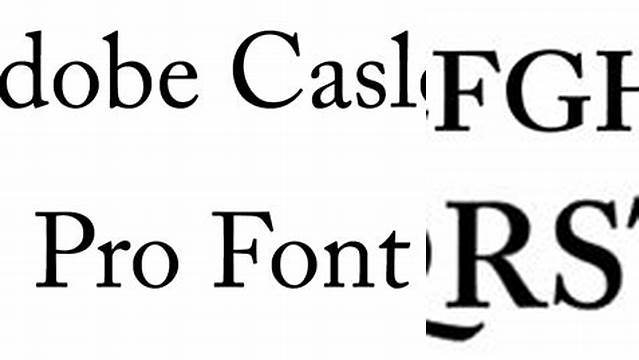
Hey guys! Are you on the hunt for a font that exudes elegance, professionalism, and a touch of historical charm? Look no further than Adobe Caslon Pro SemiBold! This typeface is a true gem in the world of typography, and in this article, we're diving deep into what makes it so special, where you can find it, and how to best utilize it in your projects. So, buckle up and let's explore the wonderful world of Adobe Caslon Pro SemiBold!
What Makes Adobe Caslon Pro SemiBold So Special?
When we talk about fonts, it's easy to get lost in the sea of options available today. But some fonts, like Adobe Caslon Pro SemiBold, have a certain je ne sais quoi that sets them apart. Its story is rooted in history, dating back to the 18th century, and its design principles are based on readability, harmony, and a classic aesthetic. This font isn't just a set of characters; it's a piece of art with a rich heritage that can bring a touch of sophistication to any design.
A Glimpse into History
The story of Adobe Caslon Pro SemiBold begins with William Caslon I, an English typefounder who created the original Caslon typeface in the 1720s. Caslon's fonts were renowned for their clarity, balance, and versatility, quickly becoming a favorite among printers and publishers. They even played a significant role in the printing of the Declaration of Independence! The Adobe Caslon Pro family, designed by Carol Twombly in 1990, is a modern revival of this classic typeface, carefully crafted to retain the original's charm while enhancing its suitability for contemporary use. The SemiBold variant strikes a perfect balance between the regular and bold weights, making it incredibly versatile for a wide range of applications.
Key Characteristics of Adobe Caslon Pro SemiBold
So, what exactly are the design elements that make Adobe Caslon Pro SemiBold so distinctive? Let's break it down:
- Readability: Caslon fonts are celebrated for their exceptional readability. The letterforms are clear and well-defined, making it a pleasure to read in both print and digital formats. This is crucial for ensuring your message is effectively communicated.
- Elegance and Sophistication: The font possesses a certain refined elegance that makes it suitable for high-end branding, formal documents, and literary works. Its subtle serifs and graceful curves evoke a sense of tradition and class.
- Versatility: The SemiBold weight is a sweet spot, offering enough emphasis without being overly assertive. This makes it ideal for headlines, subheadings, body text, and even logos. It pairs beautifully with other fonts, both serif and sans-serif, providing flexibility in your design choices.
- Historical Charm: With its roots in the 18th century, Adobe Caslon Pro SemiBold carries a sense of history and tradition. This can be particularly appealing for projects that aim to convey a sense of heritage, authenticity, or timelessness.
- Harmonious Proportions: The letterforms are meticulously designed with balanced proportions, creating a visually pleasing and harmonious appearance. This attention to detail contributes to the font's overall elegance and readability.
Where to Use Adobe Caslon Pro SemiBold
Okay, so you're intrigued by Adobe Caslon Pro SemiBold, but where can you actually use it? The beauty of this font lies in its versatility. It's a workhorse that can adapt to various design needs. Let's explore some specific scenarios:
- Branding: If you're aiming for a brand identity that exudes sophistication and trust, Adobe Caslon Pro SemiBold is an excellent choice. It works particularly well for businesses in the fields of law, finance, education, and luxury goods.
- Editorial Design: Magazines, books, and newspapers can benefit greatly from this font's readability and classic appeal. It's perfect for body text, headlines, and captions, ensuring a smooth and enjoyable reading experience.
- Web Design: While serifs were once considered less suitable for on-screen reading, modern browsers and display technologies have made fonts like Adobe Caslon Pro SemiBold a viable option for websites. It can add a touch of elegance to your website's typography, especially in headings and body text.
- Print Materials: From business cards to brochures to posters, Adobe Caslon Pro SemiBold shines in print. Its clarity and elegance make it a perfect choice for any printed communication.
- Invitations and Stationery: For formal events like weddings and galas, this font adds a touch of class and refinement to invitations, place cards, and other stationery items.
By understanding its history, characteristics, and best practices for usage, you can harness the power of Adobe Caslon Pro SemiBold to create stunning designs that stand the test of time. Happy designing!